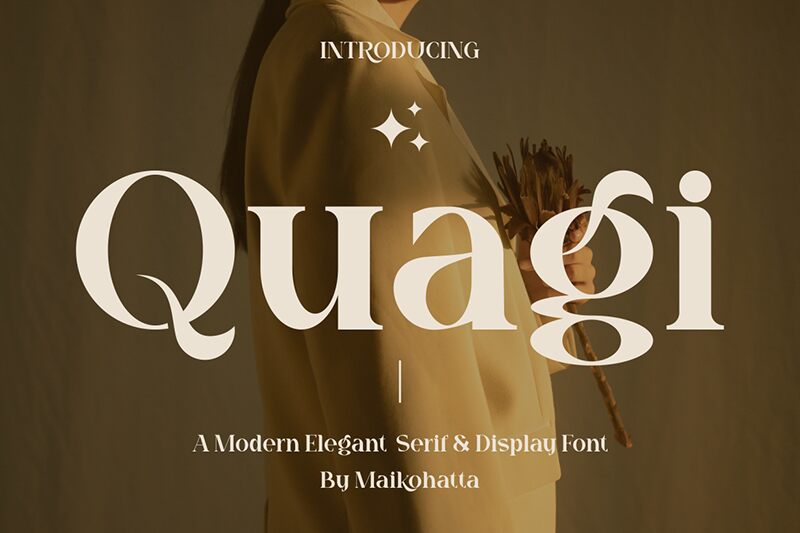
Quagi
Quagi font by Maikohatta graphic designer Gilang Ternadho is a serif font inspired by the Baroque style. The elegant typeface is designed as a reinterpretation of classical fonts, it has expressive curves and high contrast between thin and thick lines. It’s a bold typography that attracts attention even if its purpose is to complement a more prominent style.